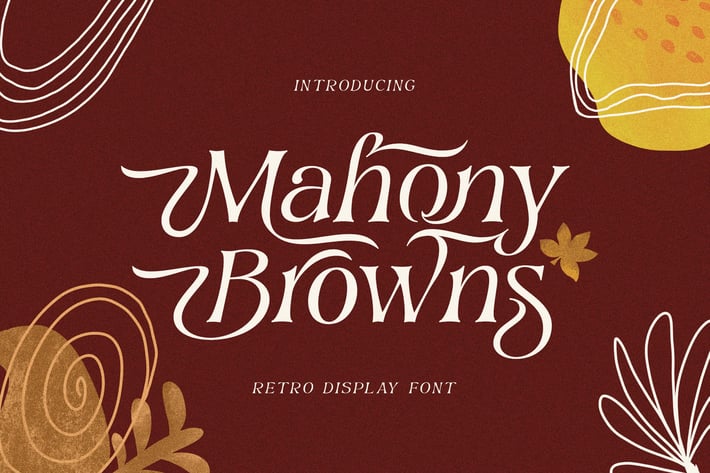
Mahony Browns Typeface
The Mahony Browns Serif typeface is an elegantly themed font that has a dynamic serif style. The details of the shape of the "Mahony Browns Serif Elegant typeface" are very smooth and flow to create unique and beautiful curves. Elegant Serif typefaces such as “Mahony Browns” are very easy to apply to any design, especially those with an elegant and smooth concept, besides that this font is very easy to use both in design and non-design programs because everything changes and glyphs are supported by Unicode (PUA).
The Mahony Browns typeface contains 717 glyphs with many unique and interesting alternative options.